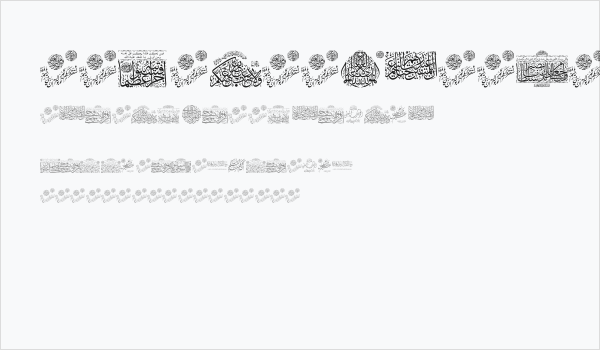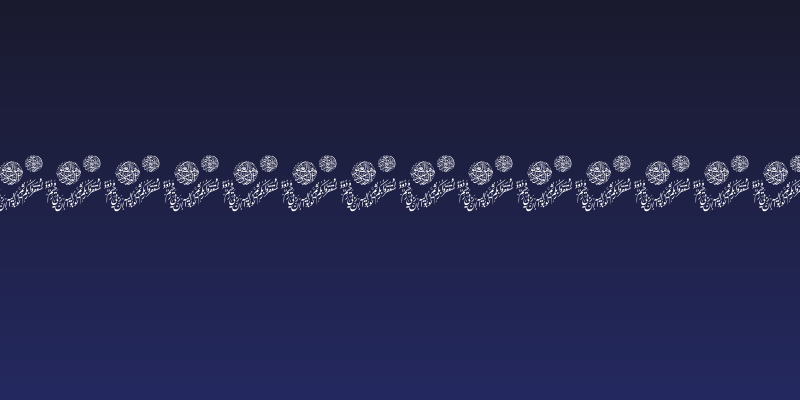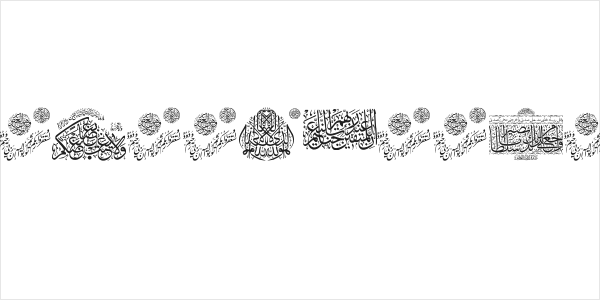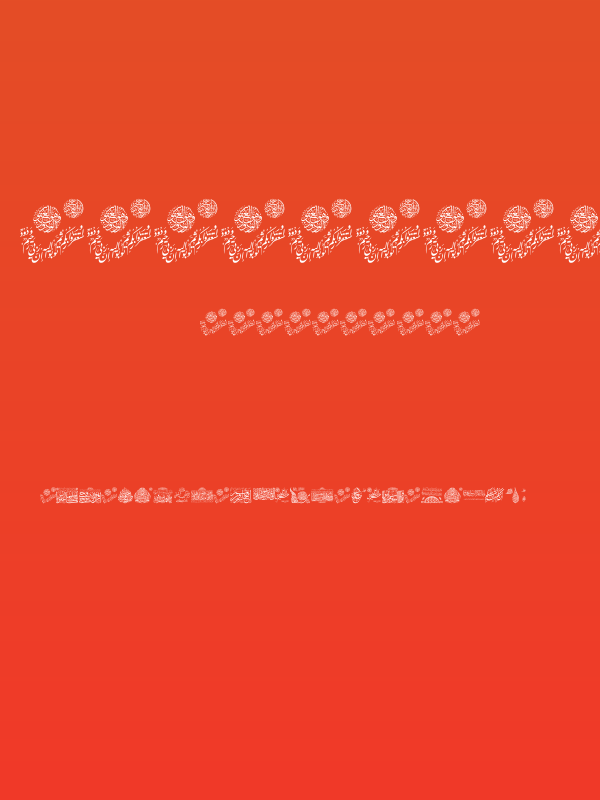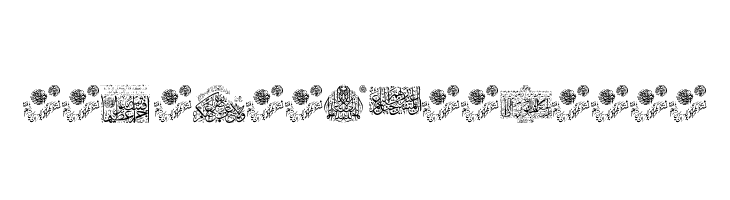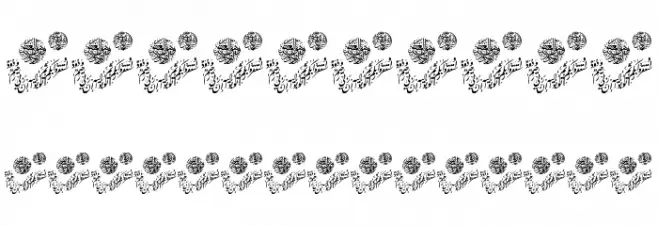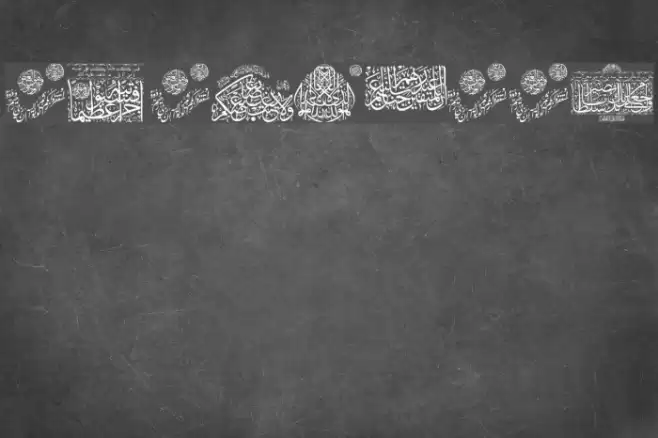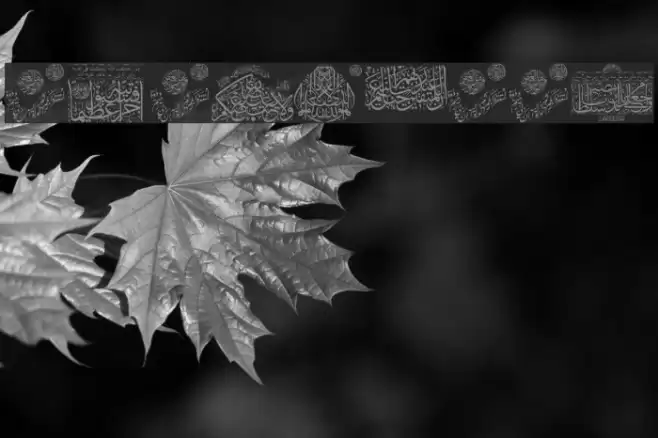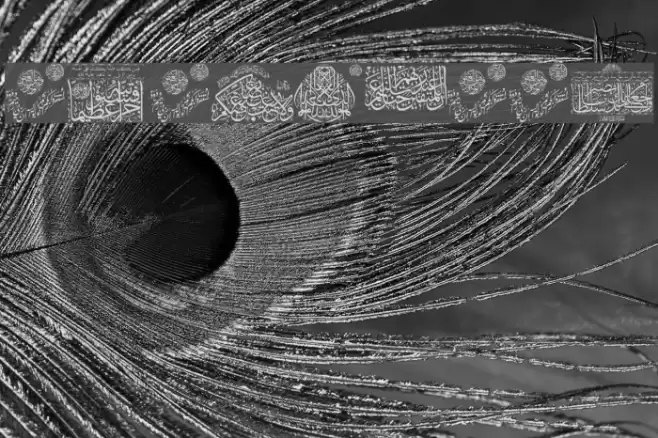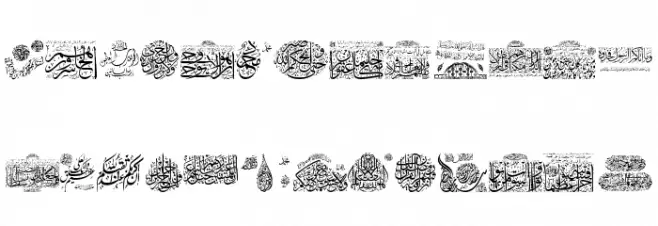
Aayat Quraan_039 Font
Aayat Quraan_039 Description
This font is a beautiful representation of traditional Arabic calligraphy, characterized by its intricate and flowing script. The letters are elegantly connected, with a harmonious balance between thick and thin strokes, creating a sense of rhythm and movement. The font captures the essence of classical Arabic script, often used in religious and cultural texts. The ornate design elements and flourishes add a decorative touch, making it suitable for formal and ceremonial purposes. The overall appearance is both majestic and refined, reflecting a deep cultural heritage.
| Use Case | Religious texts, Cultural publications, Formal invitations |
| Proposed Projects | Ideal for religious texts, cultural publications, formal invitations, and decorative art pieces. |